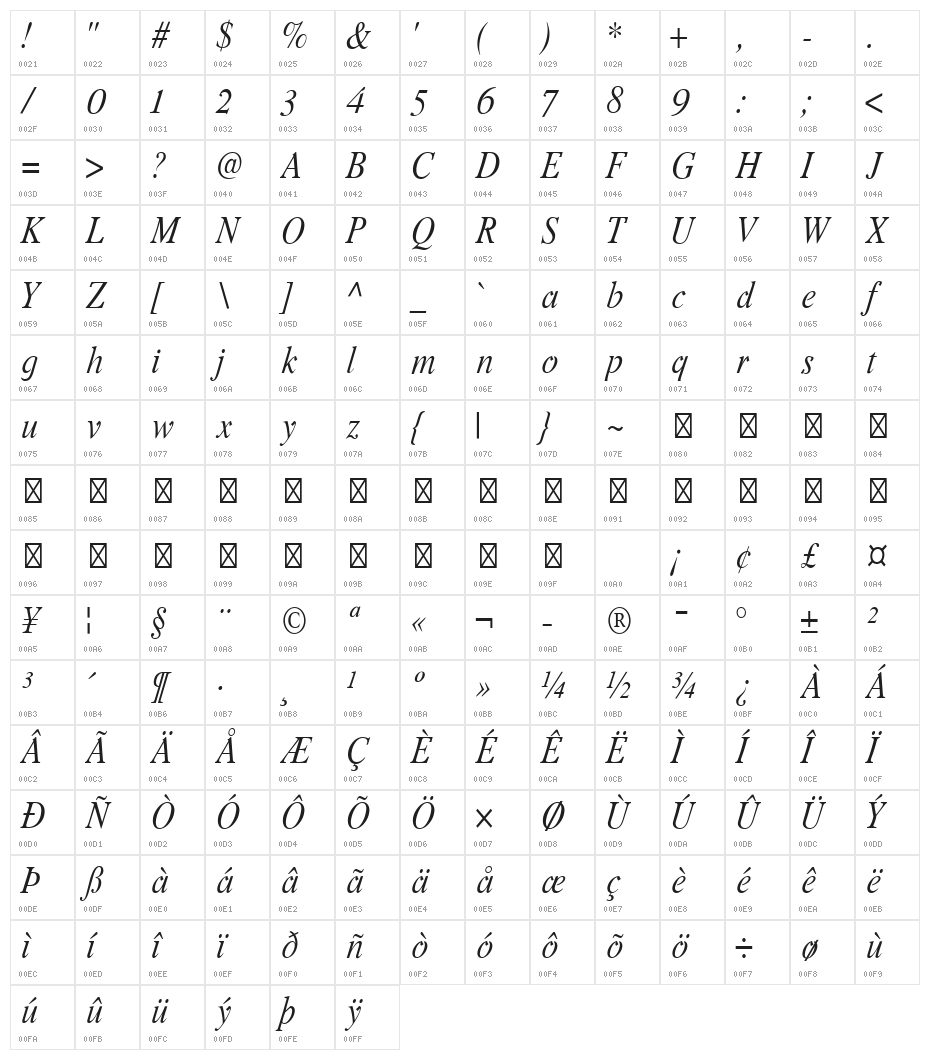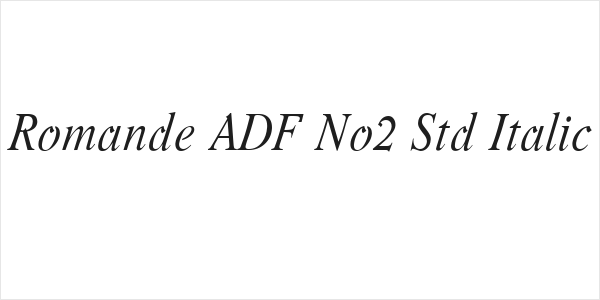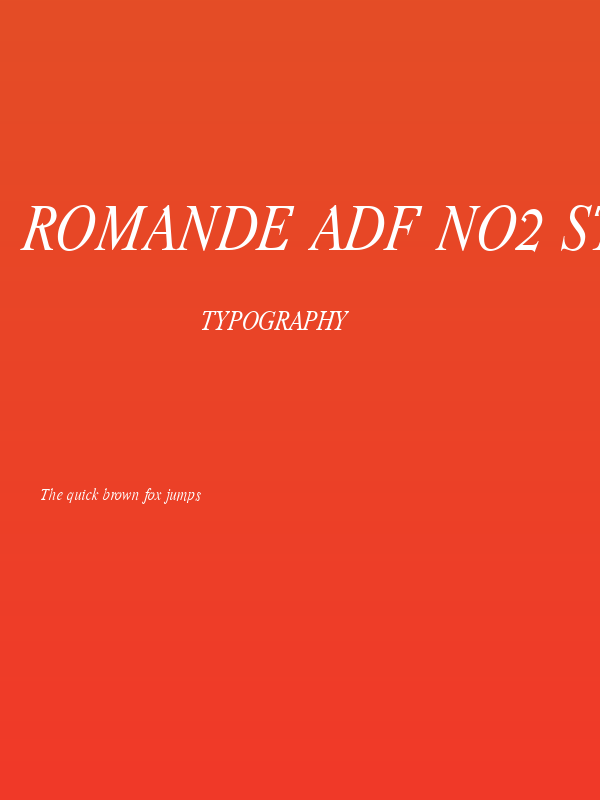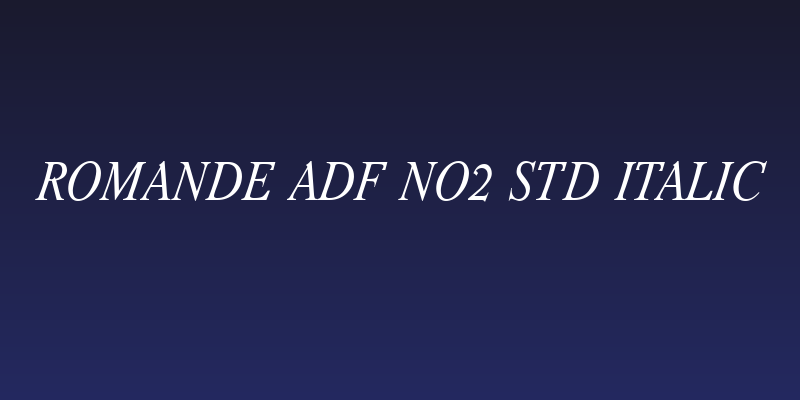
Romande ADF No2 Std Italic Font
Romande ADF No2 Std Italic Description
This font exudes a classic elegance with its italicized serif style. The letters are gracefully slanted, providing a sense of motion and sophistication. The serifs are pronounced yet refined, contributing to a timeless aesthetic. The uppercase letters are stately, while the lowercase letters maintain a fluidity that enhances readability. Numerals are clear and well-proportioned, making them suitable for a variety of uses. The special characters are crafted with the same attention to detail, ensuring consistency across the font. This font is ideal for projects that require a touch of class and tradition.
| Proposed Projects | Ideal for formal invitations, elegant branding, book covers, and editorial design. |